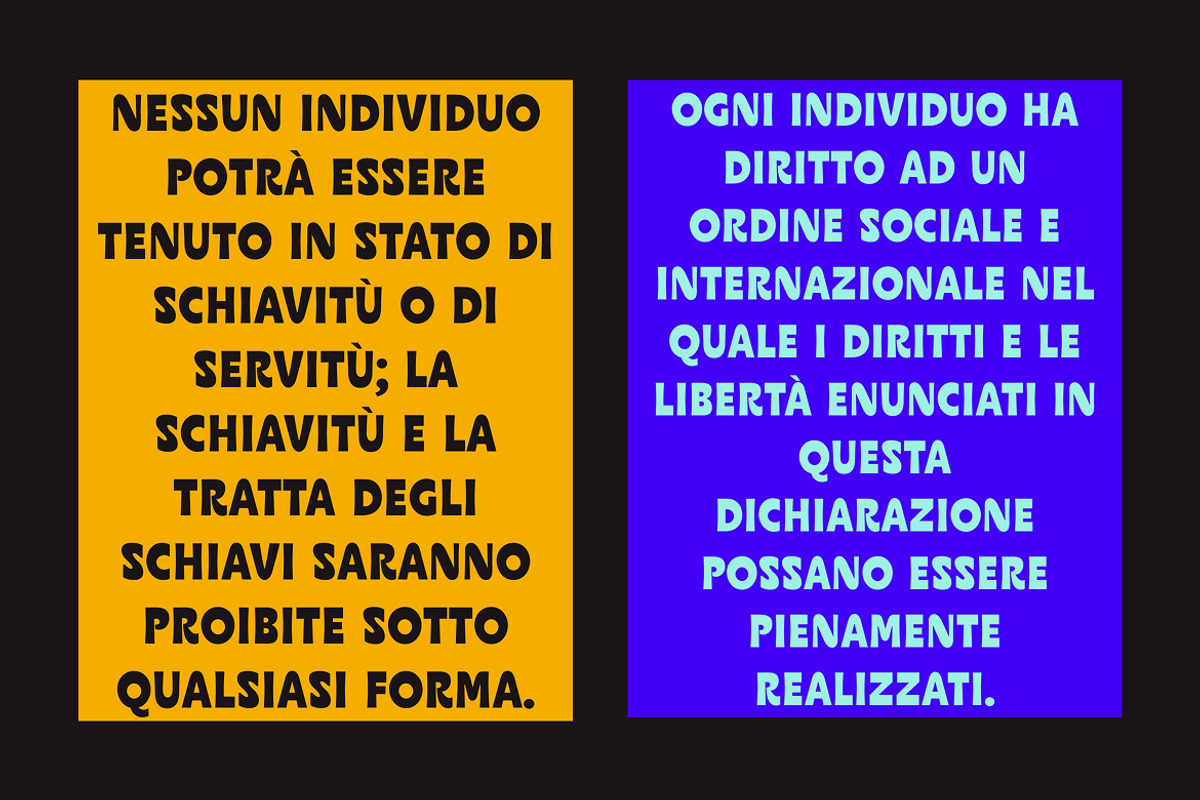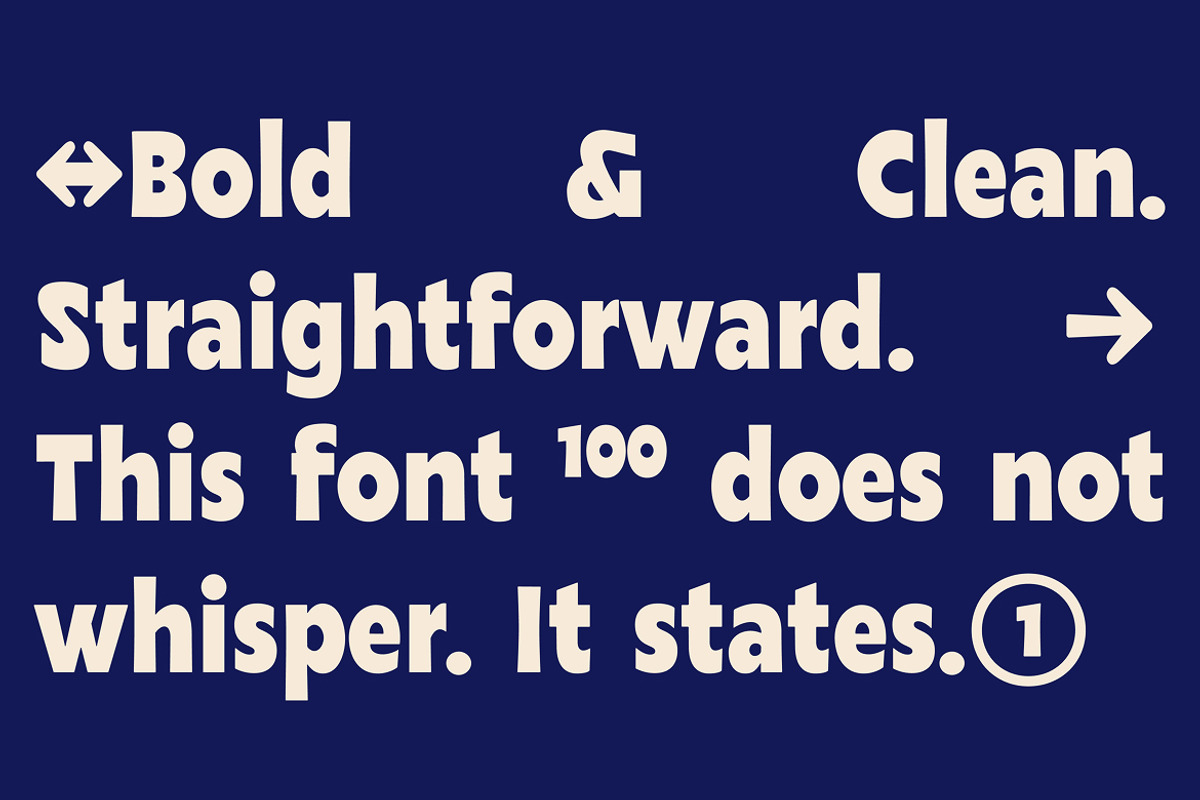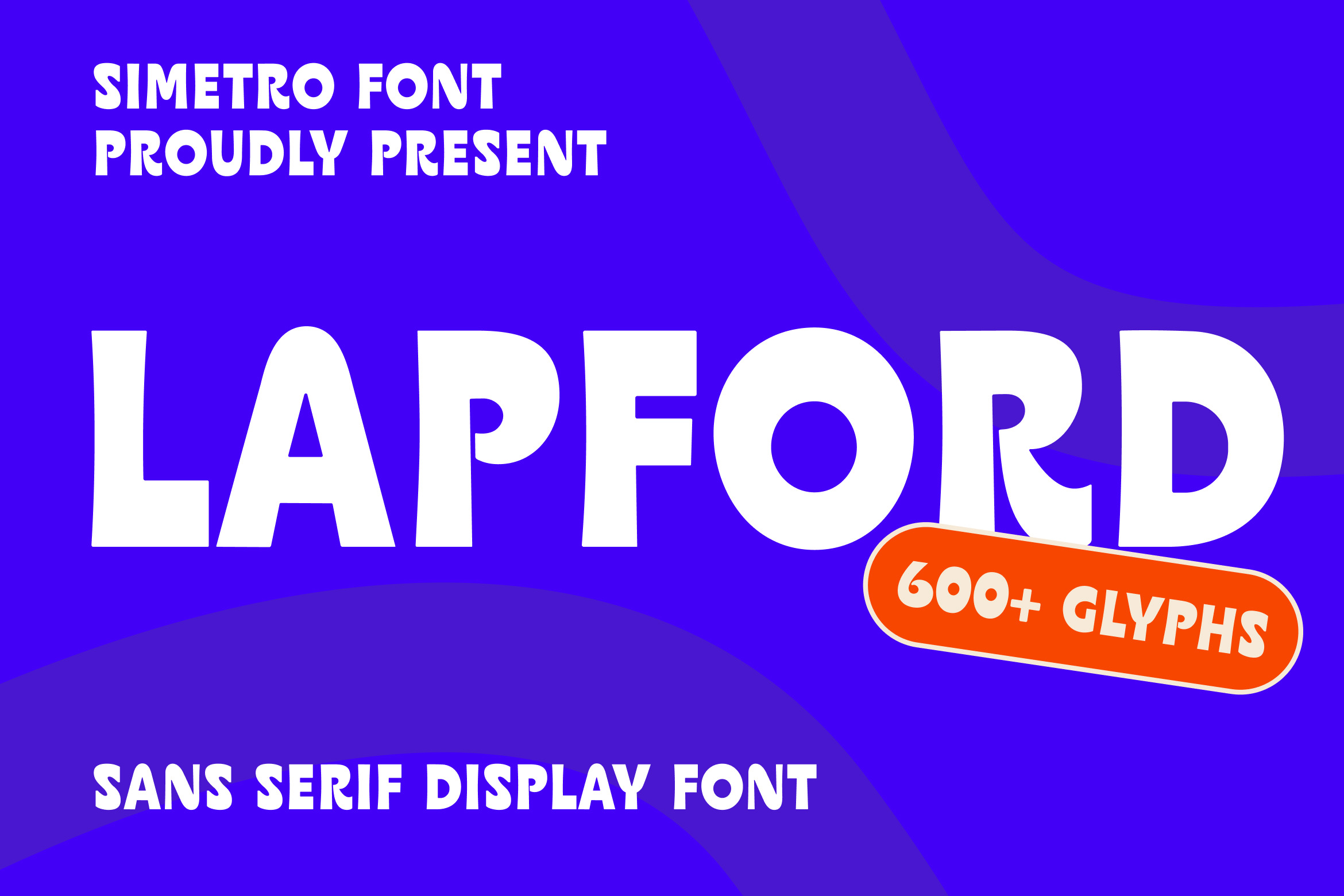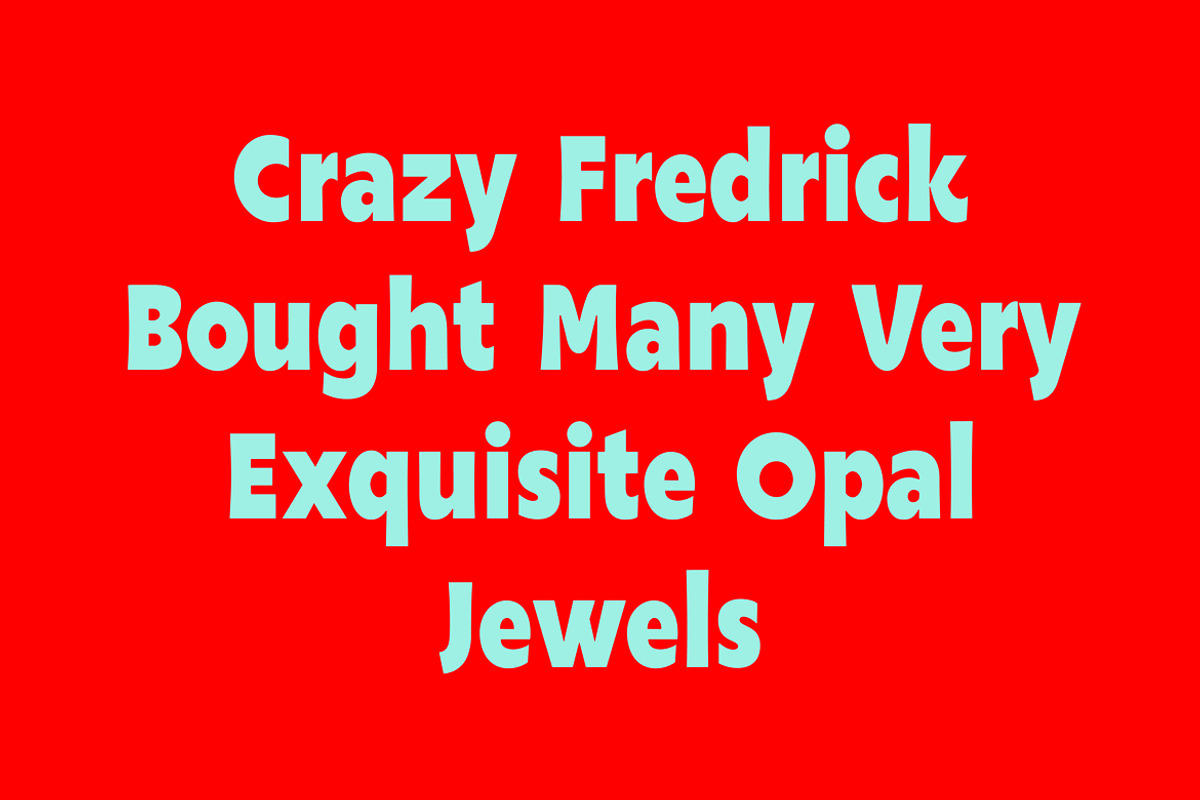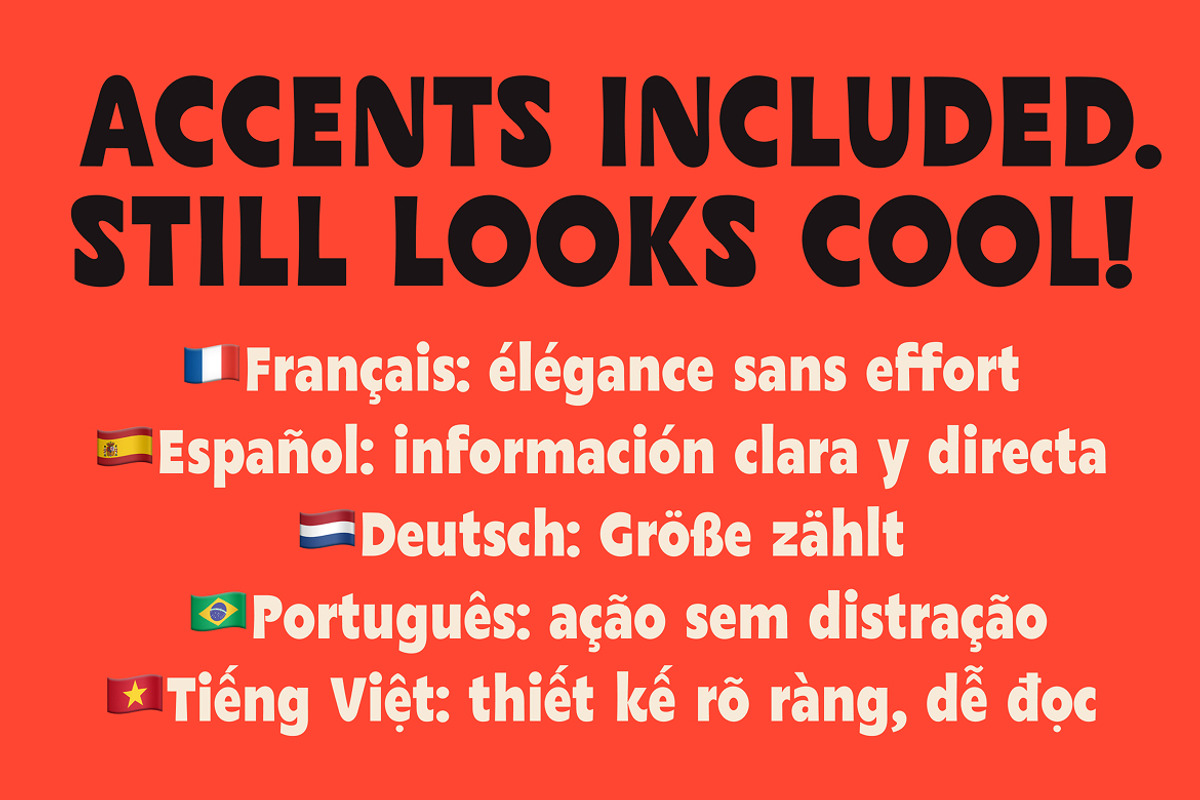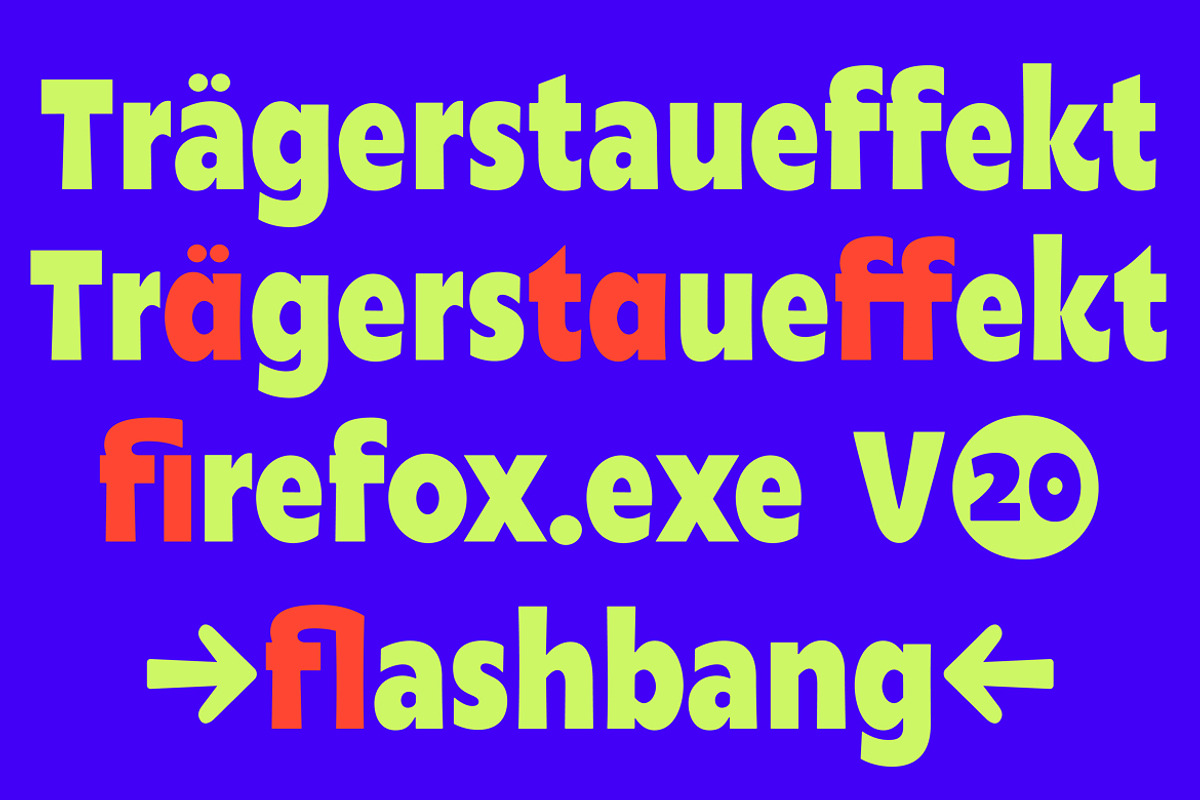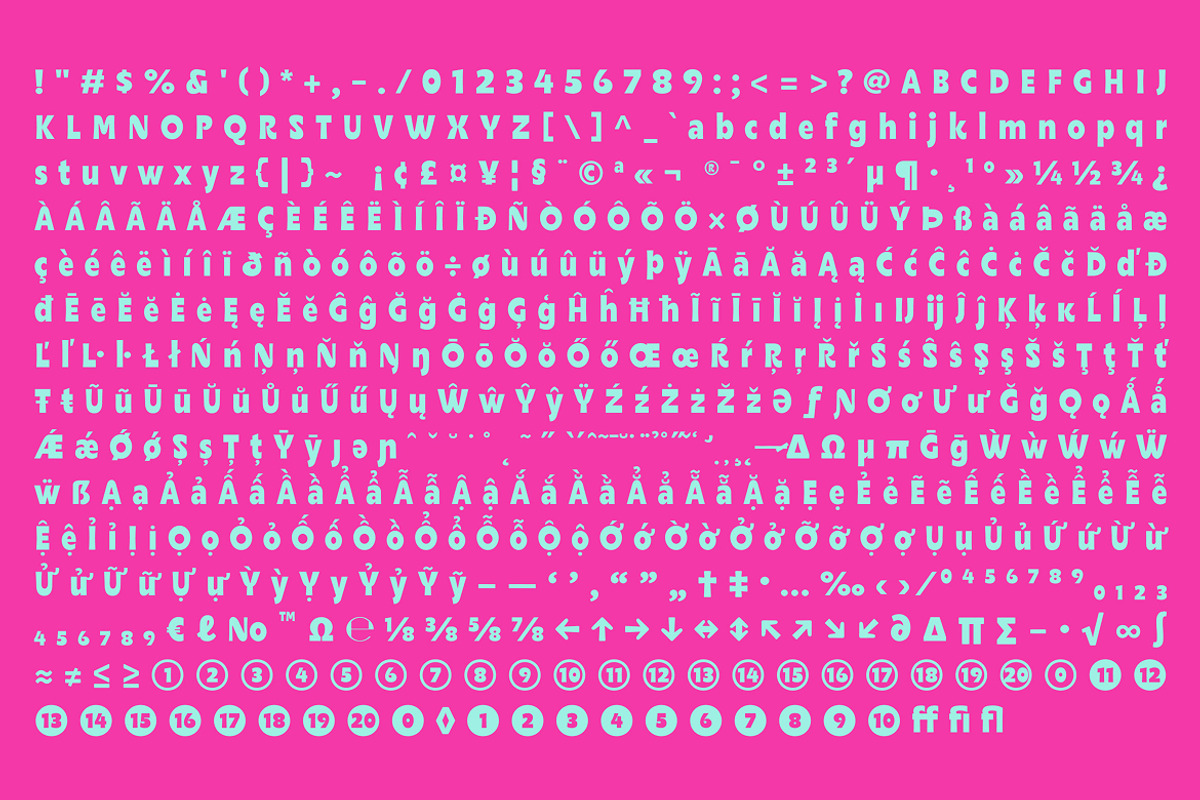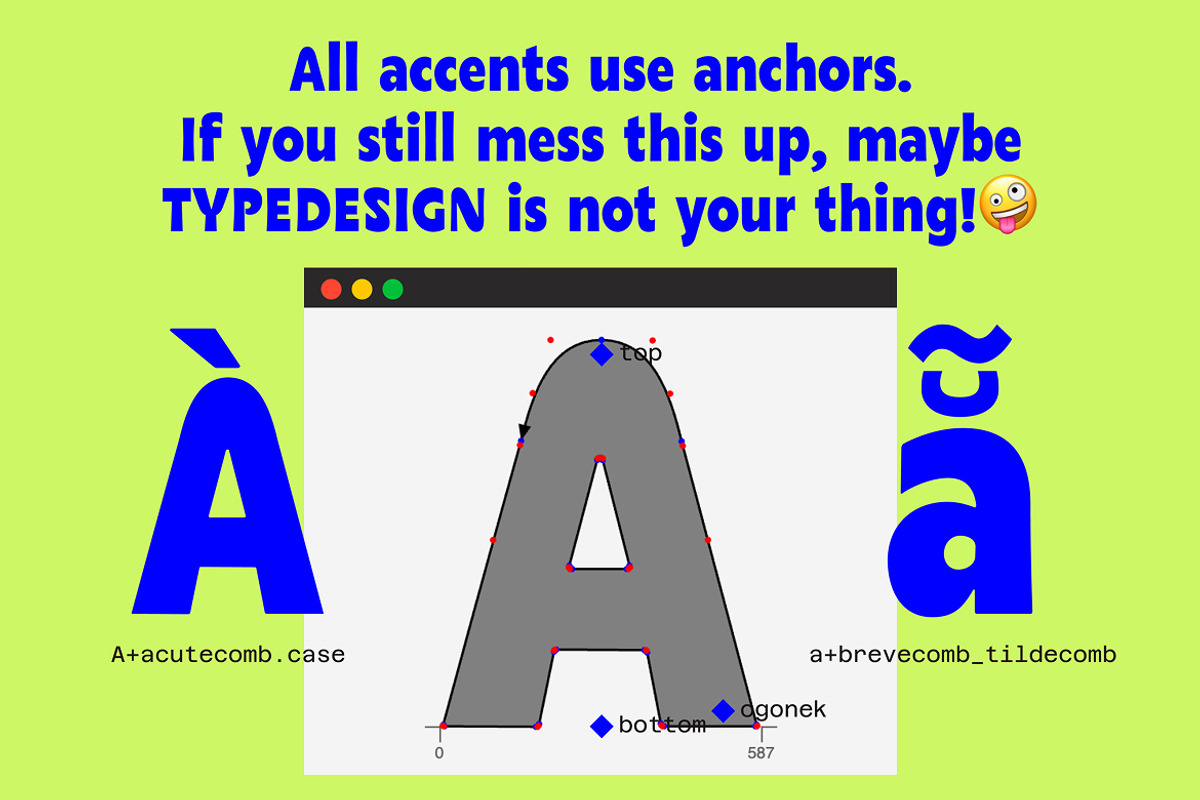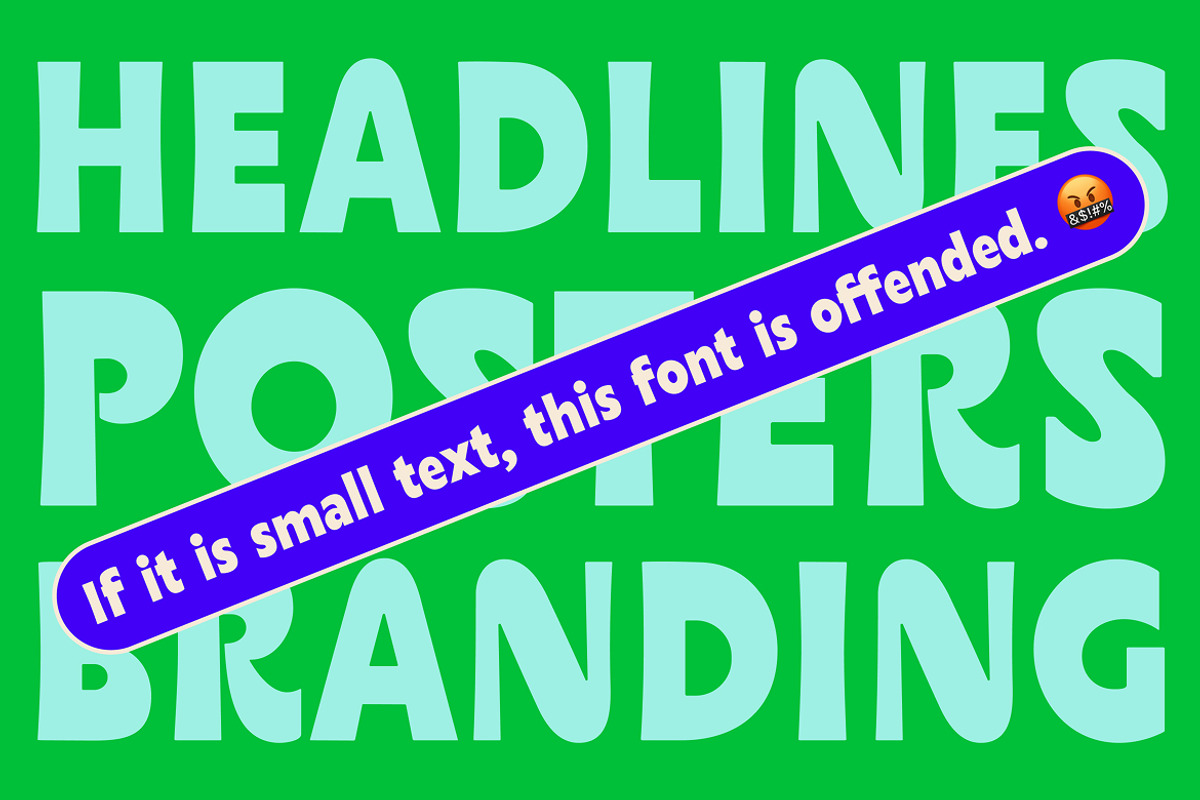
Lapford - Sans Serif Font Display
Introducing Lapford, a bold clean sans serif display font designed to deliver strong impact with minimal effort. Built with confident letterforms, smooth curves, and solid geometric proportions, Lapford is made for designs that need to look powerful, modern, and highly readable.
This typeface shines in headlines, poster designs, logo branding, social media content, advertising banners, and other visual projects where clarity and boldness matter. Lapford doesn’t try to be decorative it’s straightforward, striking, and professional, making your message look louder and more confident.
Lapford comes with a wide glyph set including uppercase, lowercase, numbers, punctuation, and multilingual characters, giving you flexibility to create consistent typography for global projects.
If you need a font that feels strong, bold, and clean, Lapford is a reliable display font that makes your designs instantly stand out.